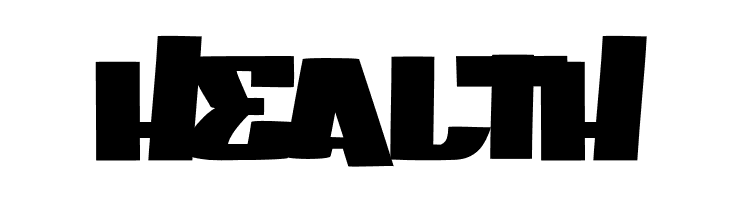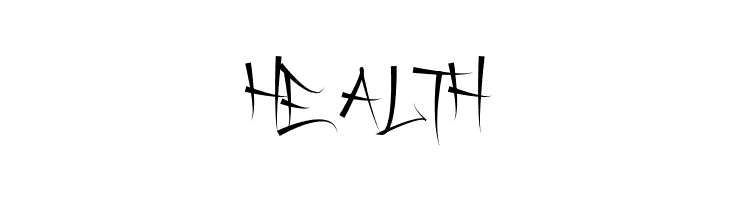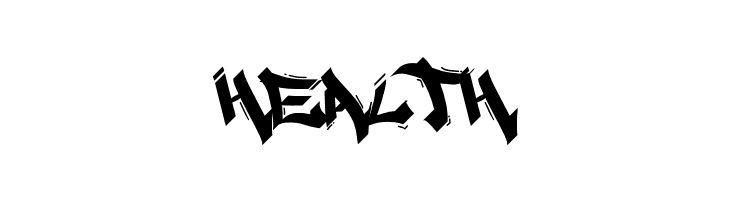
( Fonts by Vanessa Bays - bythebutterfly.com )
A casual, handwritten font with a playful and informal style.
( Fonts by Vanessa Bays - bythebutterfly.com )
A playful, hollow, and rounded font with a casual vibe.
( Fonts by Vanessa Bays - bythebutterfly.com )
( Fonts by Steve Cloutier - www.cloutierfontes.ca )
A bold, distressed font with a grunge texture and rugged appearance.
( truefonts.blogspot.com )
A textured, distressed font with a modern, graffiti-like style.
( Fonts by Andrew Hart - dirt2.com )
A graffiti-inspired font with chaotic, energetic, and highly stylized characters.
( www.epicdelusion.com/fonts-s/1873.htm )
A bold, distressed font with a grunge texture, ideal for edgy designs.
( Fonts by Jonathan Harris - www.tattoowoo.com )
A bold, distressed font with a textured, spray-painted appearance.
A bold, distressed font with a grunge texture and angular, geometric shapes.
A bold, grunge-style font with distressed textures and star motifs.
( Fonts by Jonathan Harris - www.tattoowoo.com )
A bold, distressed font with a gritty, urban style.
( www.leodsen.com )
A bold, distressed font with a grunge, urban aesthetic.
( Fonts by Goma Shin - Shintarou Nakayama www.geocities.jp/gomarice_font/ )
A bold, angular font with a modern, urban style.
( Fonts by Bumbayo Font Fabrik - bumbayo.blogspot.com )
A bold, grunge-inspired font with a distressed, edgy appearance.
( www.leodsen.com )
A distressed, grungy font with irregular edges and a textured appearance.
Bold, distressed font with an outlined, three-dimensional effect.
A bold, distressed font with a grungy, urban style.
( Fonts by Manuel Viergutz - Typo Graphic Design - www.typographicdesign.de )
A bold, angular font with a graffiti-inspired, edgy style.
( Fonts by Manuel Viergutz - Typo Graphic Design - www.typographicdesign.de )
A bold, graffiti-inspired font with thick, uneven strokes and a hand-drawn style.
( Fonts by Manuel Viergutz - Typo Graphic Design - www.typographicdesign.de )
A bold, graffiti-inspired font with blocky, angular characters and a strong urban aesthetic.
( Fonts by Steve Cloutier - www.cloutierfontes.ca )
A distressed, grunge-style font with a rebellious and edgy appearance.
( Fonts by Andrew McCluskey - nalgames.com )
A bold, distressed font with a grunge texture and rugged appearance.
( www.mschroeppel.de/ )
A bold, distressed font with a rough, textured appearance ideal for edgy designs.
( Fonts by Fernando Haro - defharo.com )
A bold, distressed font with a grunge texture, perfect for urban and edgy designs.
( Fonts by Fernando Haro - defharo.com )
A bold, distressed font with a grunge texture, perfect for urban designs.
A bold, distressed font with a grungy, urban style.
A graffiti-inspired font with sharp, angular lines and dynamic, energetic characters.
( www.hypefonts.com )
A bold, distressed font with a gritty, urban texture.
A bold, edgy graffiti-style font with sharp angles and dynamic forms.
A bold, distressed font with a rugged, industrial style.
( www.JaydeFonts.webstarts.com )
A bold, distressed font with a grunge texture and tight spacing.